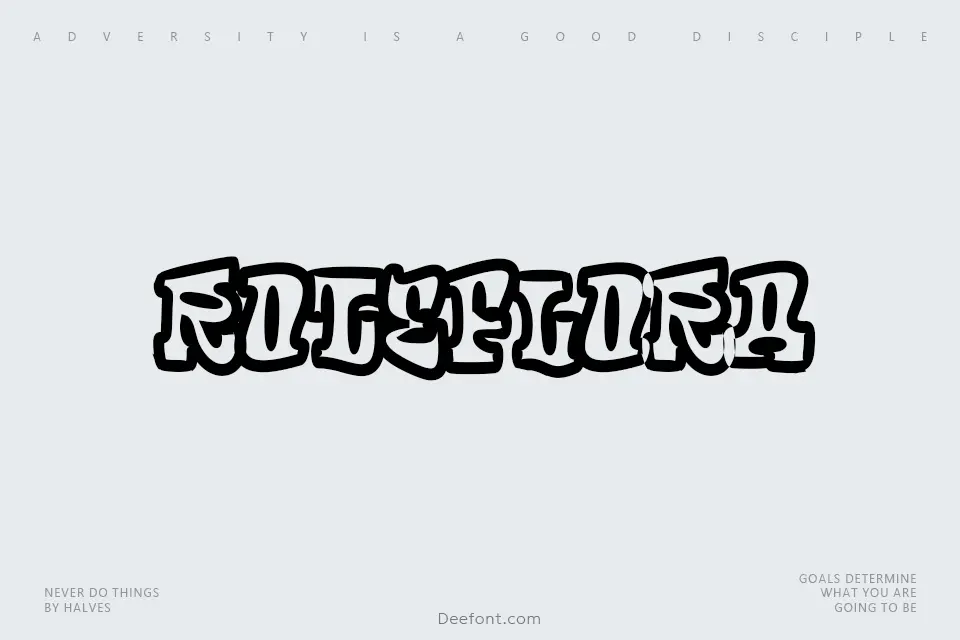
RoteFlora Font
RoteFlora is a bold, playful display font featuring chunky, uneven letters with a hand-drawn, distorted feel reminiscent of graffiti and bubble letters. Its heavy weight and informal style make it ideal for titles, logos, and eye-catching designs. The font combines an energetic, quirky aesthetic with the outlined characteristics typical of street art typography, ensuring readability even at smaller sizes for creative projects.